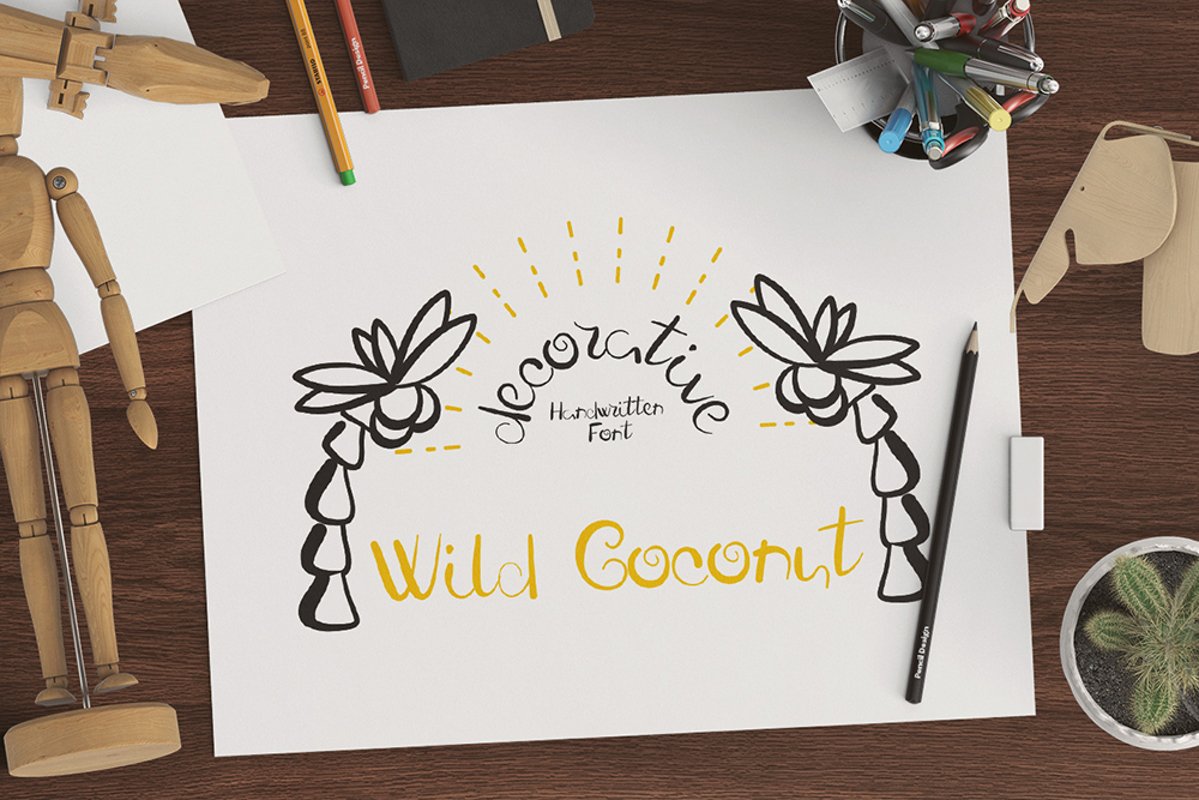
Fresh Wild Coconut decorative FONT
Fresh Wild Coconuts font decorates youth design, packaging design, handwritten cards and greetings for various holidays: mother's day, father's day, Christmas, Easter, thanksgiving and summer seasonal offers. This bright handwritten font suitable for the decoration of restaurants menu.
Wild Coconut - A hand drawn script font containing upper & lowercase characters, numerals and a large range of punctuation.